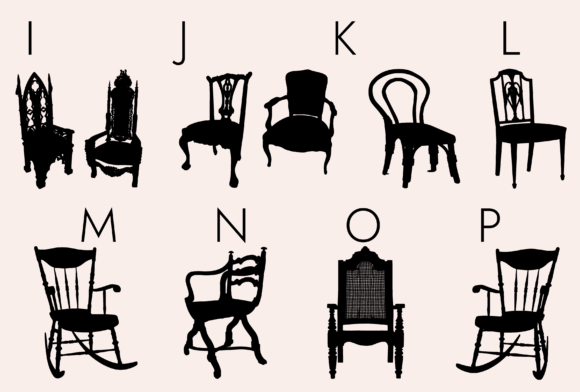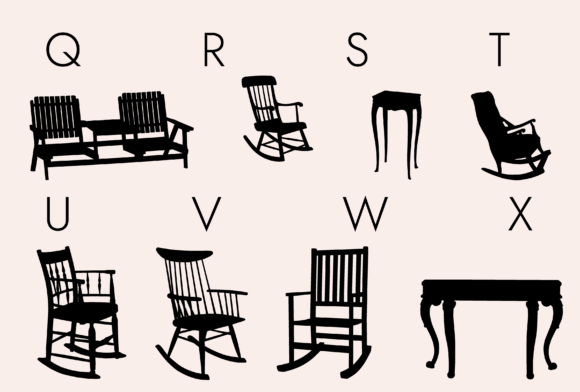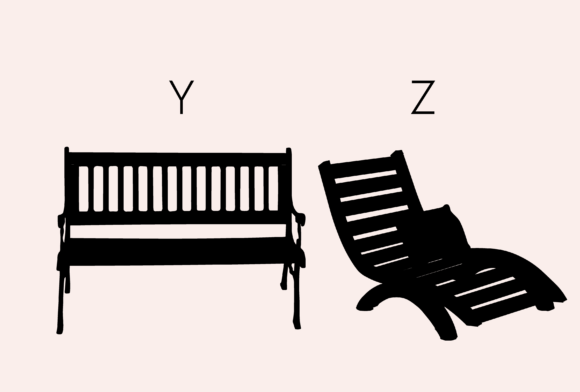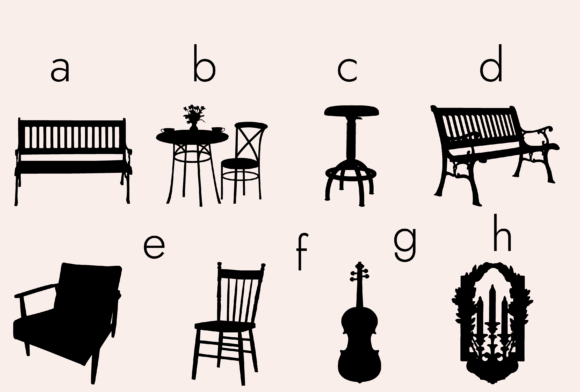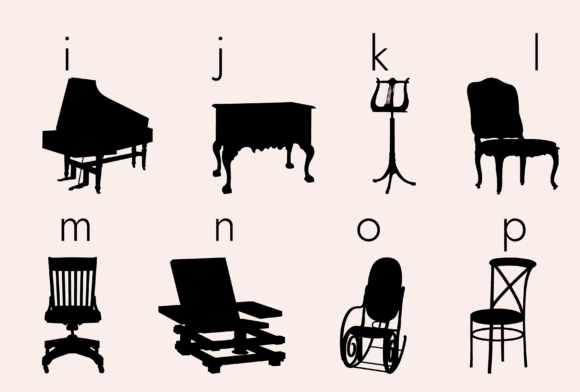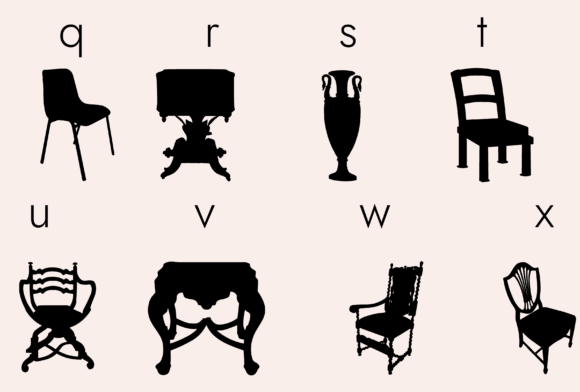
Furniture Font: Unlock Endless Design Possibilities with Dingbats
Are you a designer, crafter, or DIY enthusiast looking for a versatile font to bring your creative projects to life? Look no further than the Furniture Font, a specially crafted dingbats font designed to provide you with a wide range of possibilities to create stunning designs. With Furniture Dingbats, you can let your imagination flow and create amazing designs that showcase your unique style.
What is a Dingbats Font?
For those who may be unfamiliar, a dingbats font is a type of font that features a collection of symbols, icons, and graphics rather than traditional letters and numbers. Dingbats fonts are often used in design projects to add visual interest, create custom icons, and enhance the overall aesthetic of a piece. The Furniture Font is a unique dingbats font that features a wide range of furniture-related symbols, making it perfect for designers and crafters working on projects related to home decor, furniture design, and DIY crafts.
Features of Furniture Font
The Furniture Font is a treasure trove of creative possibilities, featuring a vast collection of furniture-related symbols, including:
- Sofas and chairs
- Tables and desks
- Beds and mattresses
- Lamps and lighting fixtures
- Decorative items, such as vases and pictures
With over [insert number] unique symbols, the Furniture Font offers endless possibilities for creating custom designs, from furniture catalogs and DIY tutorials to social media graphics and blog posts.
Benefits of Using Furniture Font
So why choose the Furniture Font for your design projects? Here are just a few benefits:
- High-quality graphics: Each symbol in the Furniture Font is carefully crafted to ensure crisp, high-quality graphics that will look great in any design.
- Customizable: With the Furniture Font, you can customize your designs to fit your unique style and brand. Use the symbols as-is or modify them to suit your needs.
- Time-saving: The Furniture Font saves you time and effort by providing a vast library of pre-made symbols, eliminating the need to create your own from scratch.
Need some inspiration for your design projects? Here are a few ideas to get you started:
- Furniture catalogs: Use the Furniture Font to create custom catalogs showcasing your favorite furniture pieces.
- DIY tutorials: Create step-by-step tutorials featuring the Furniture Font to help others recreate your designs.
- Home decor blogs: Use the Furniture Font to add visual interest to your blog posts and make your content more engaging.
- Social media graphics: Create eye-catching social media graphics featuring the Furniture Font to promote your designs and connect with others.
The Furniture Font is a versatile and powerful dingbats font that’s perfect for designers, crafters, and DIY enthusiasts. With its vast collection of furniture-related symbols, ease of use, and high-quality graphics, the Furniture Font offers endless possibilities for creating stunning designs. Whether you’re working on a furniture catalog, DIY tutorial, or social media graphic, the Furniture Font is the perfect tool to bring your creative vision to life.